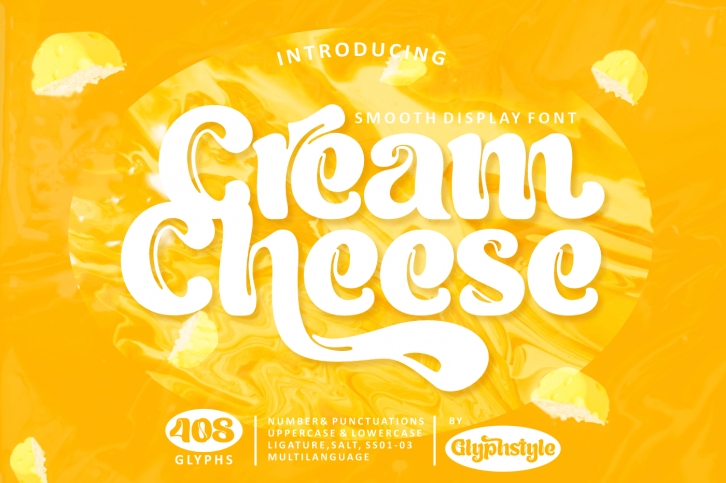
Cream Cheese is a bold display font that has smooth, luscious curves. Its letters look like melted cream, which makes it suitable for restaurant menus, social media posts, logos, product packaging, or anything that needs a delicious accent.